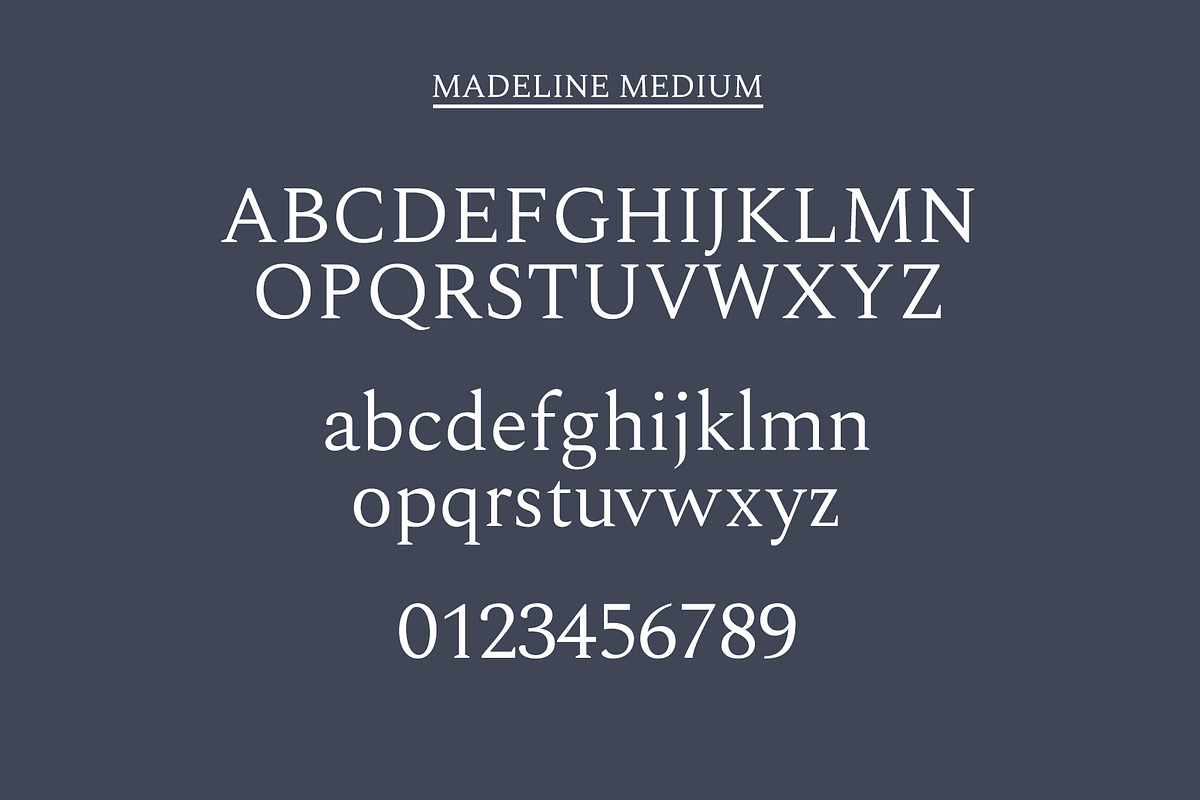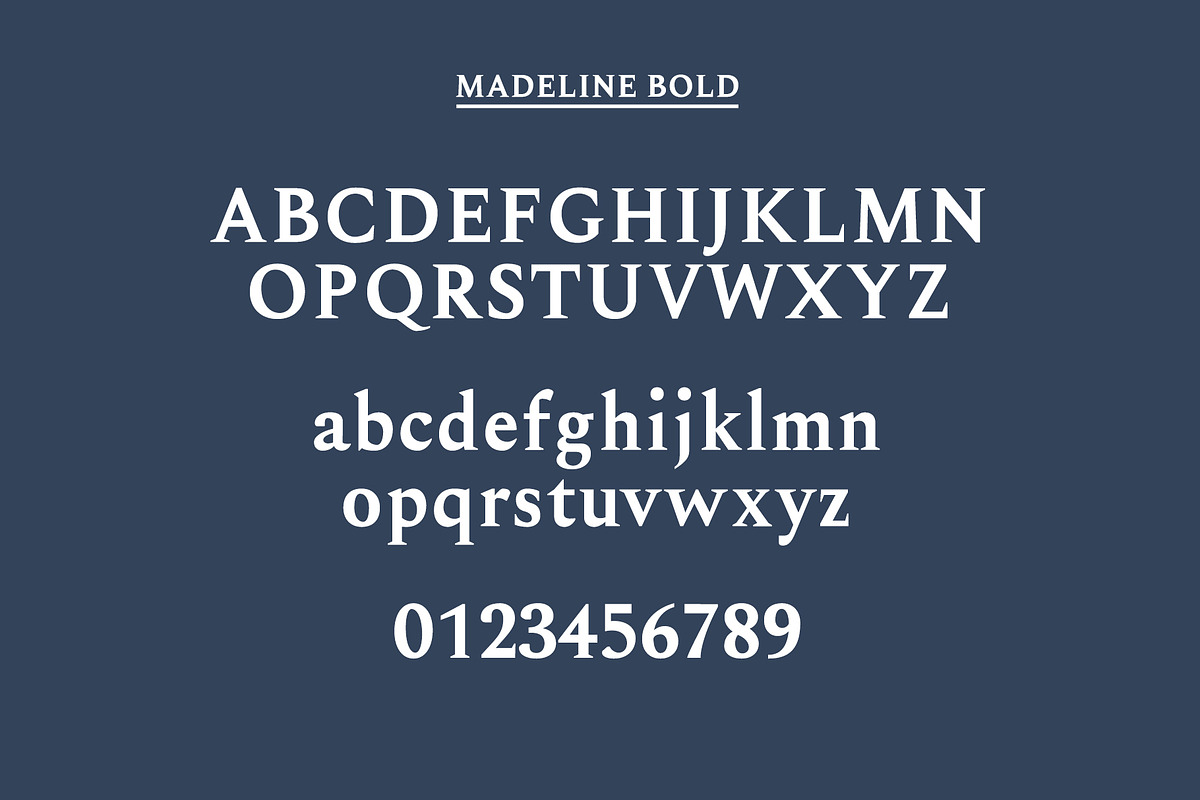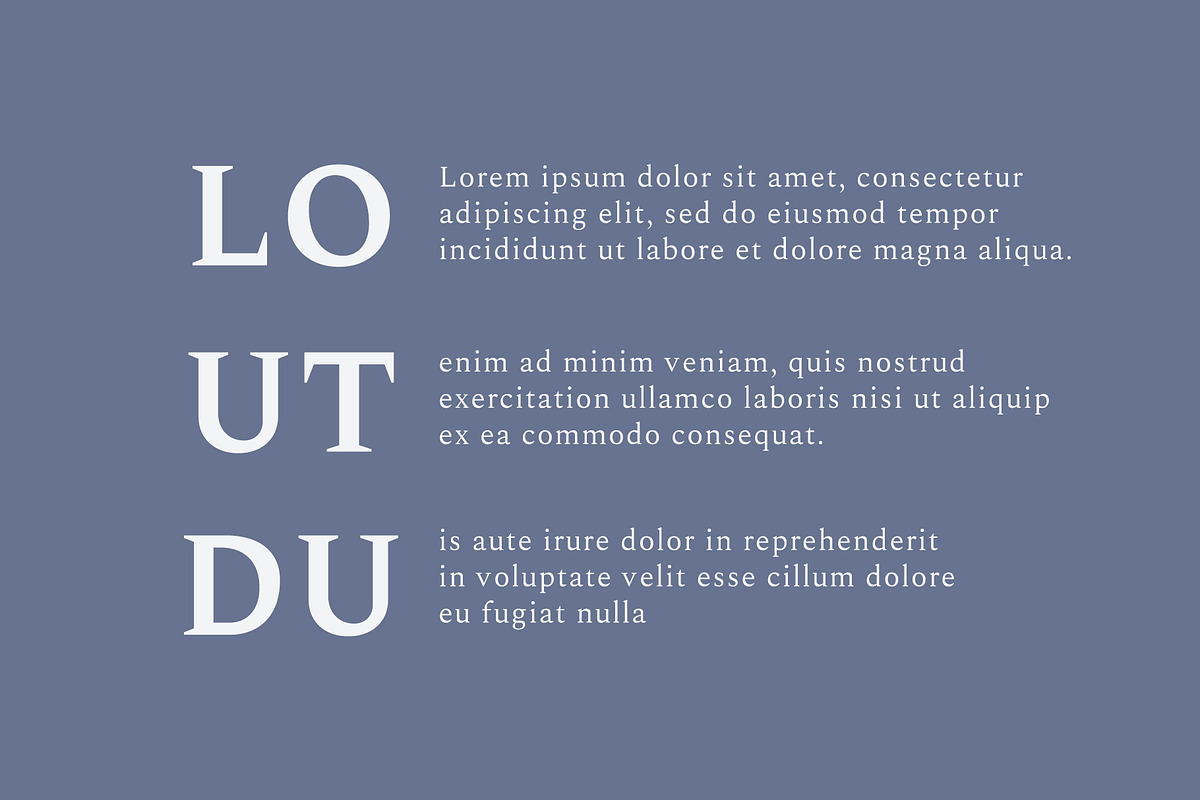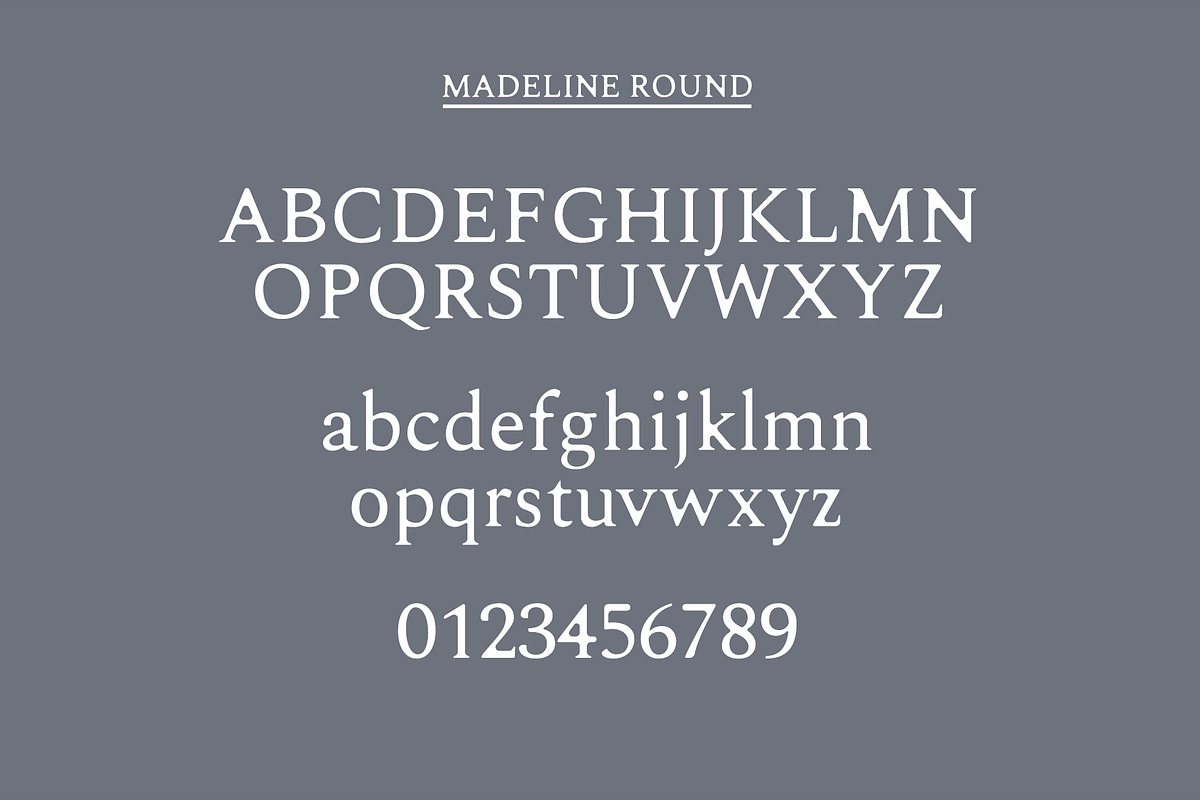
Madelin Serif Font Family
Madeline is a high class and adaptable serif font family with wide choice of weights. It includes all basic glyphs with Non-English characters. It can be used for logo, greeting cards, posters, branding, name card, stationary, design title, blog header, quotes, typography, headlines, packaging, presentations, titles, magazines, headings, web layouts, advertising, invitations, packaging design, books, and nearly any creative design.
Included Features:
- Font Weight: Regular, Medium, Round, Outline and Bold
Madeline Font Features:
- Uppercase Letters
- Lowercase Letters
- Non English Characters ( Latin Supplement + Latin Extended A)